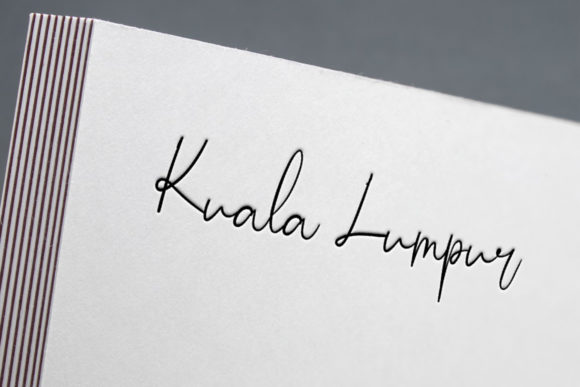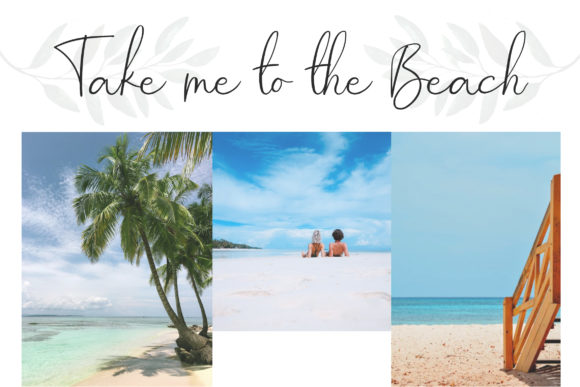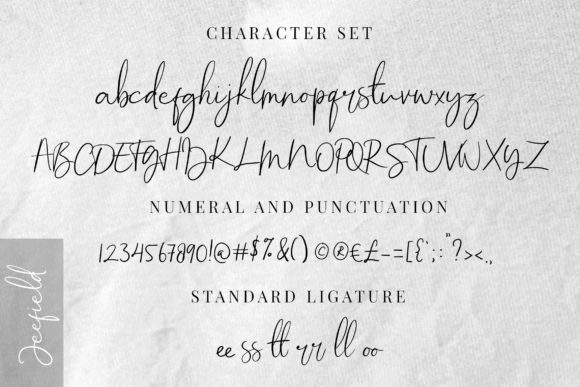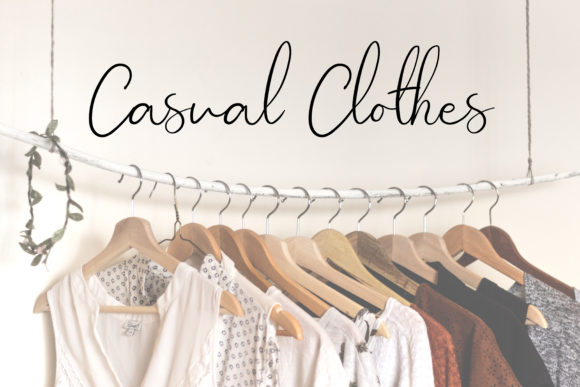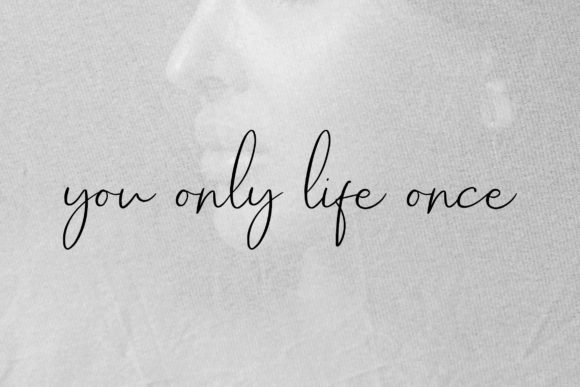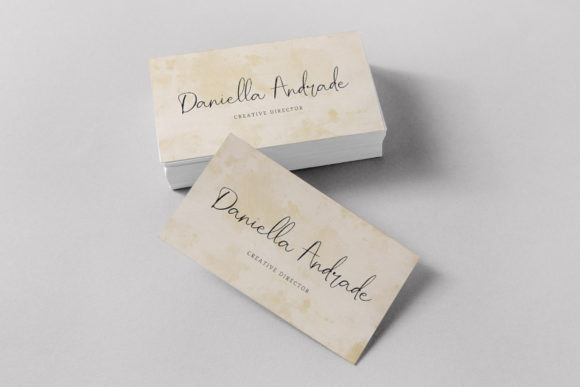
Introduction to Jeefield Font
As a designer, there’s nothing quite like the thrill of discovering a new font that perfectly captures the essence of your creative vision. It’s that moment when all the pieces come together, and your design begins to take shape. For many of us, this moment of inspiration is what drives us to push the boundaries of our craft.
One such font that has been making waves in the design community is the Jeefield Font. This elegant and legible typeface is a game-changer for designers looking to elevate their high-quality designs. Whether you’re working on a free download project or a paid commission, Jeefield Font is a valuable design resource that’s sure to impress.
Key Features of Jeefield Font
- High-quality, free font download suitable for creative projects and design resources.
- This font features a transparent background, making it ideal for graphic designs and digital art projects.
- Jeefield Font offers a unique, modern design that can add a touch of sophistication to any creative project.
- The font is available in a single weight, making it easy to use in a variety of design contexts.
- Jeefield Font is designed to be highly legible at various resolutions, making it suitable for use in print and digital applications.
Honest Review: Jeefield Font
I recently had the chance to try out the Jeefield Font, and I’m excited to share my honest thoughts on this design resource.
- ✨ Transparent background, making it easy to use with any image or background
- ✨ Versatile and can be used for a wide range of design applications
- ⚠️ Limited font styles, which may not be ideal for designers who need a lot of variation
Overall, I’m impressed with the Jeefield Font’s design and versatility. It’s a great addition to any designer’s toolkit, especially for personal or small-scale projects. However, be aware of the limitations, and use it wisely.
Tips for Getting the Most Out of Jeefield Font
Experiment with different font sizes, colors, and combinations to create a unique design. Use the Jeefield Font in conjunction with other design elements to add depth and interest to your creative project.
The Jeefield Font is ideal for a variety of creative projects, including logos, brochures, and social media graphics. Its high-quality design and transparent background feature make it a versatile and practical design resource.